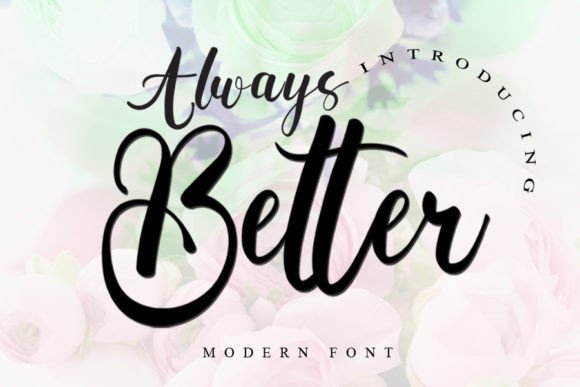
The Ultimate Design Game-Changer: Always Better Font
Have you ever been in the middle of a design project, and suddenly, you’re stuck on finding the perfect font? I certainly have! It was a typical Wednesday evening when I was working on a wedding invitation design for a client. The design was almost complete, but something was missing – the right font. That’s when I stumbled upon the Always Better Font, and trust me, it was a game-changer! 🎉
After spending hours experimenting with the Always Better Font, I’m excited to share my honest review. Here’s what I love and what you should be aware of:
- ✨ Fresh and beautiful handwritten style that’s perfect for a variety of design projects
- ✅ Highly versatile and can be used for YouTube banners, covers, logos, mockups, wedding invitations, ID cards, flyers, crafts, and more
- ✅ Easy to read and understand, even at smaller font sizes
- ✅ Unique and elegant, making it perfect for designs that require a personal touch
Now, let’s talk about some minor quirks:
- ⚠️ Some users might find the font a bit too delicate for certain design projects, such as posters or billboards
- 🤔 Limited availability of stylistic alternates and glyphs, which might limit its use in certain design contexts
The Story Behind Always Better Font: A Designer’s Inspiration
The Always Better Font was created by a talented designer who wanted to craft a font that would be both beautiful and versatile. Inspired by the elegance of handwritten scripts, the designer aimed to create a font that would be perfect for a variety of design projects, from wedding invitations to YouTube banners.
| What type of designs is the Always Better Font best suited for? | The Always Better Font is perfect for a variety of design projects, including YouTube banners, covers, logos, mockups, wedding invitations, ID cards, flyers, crafts, and more. |
| Is the Always Better Font easy to read? | Yes, the Always Better Font is highly legible and easy to read, even at smaller font sizes. |
| Does the Always Better Font come with OpenType features? | Yes, the Always Better Font comes with some OpenType features, including stylistic alternates and glyphs. |
In conclusion, the Always Better Font is a stunning, versatile font that’s perfect for designers, crafters, and creative hobbyists. With its elegant handwritten style, ease of use, and range of applications, it’s an excellent addition to any design project. So why not give it a try and see how it can elevate your designs? 🚀